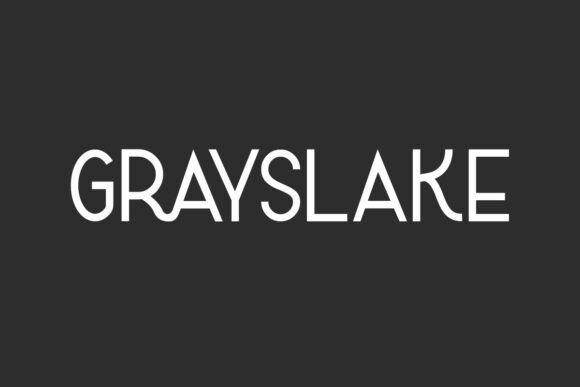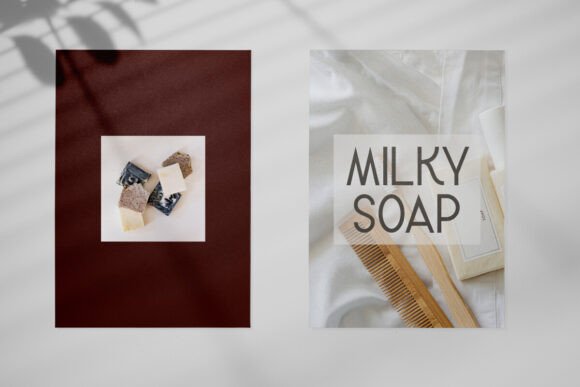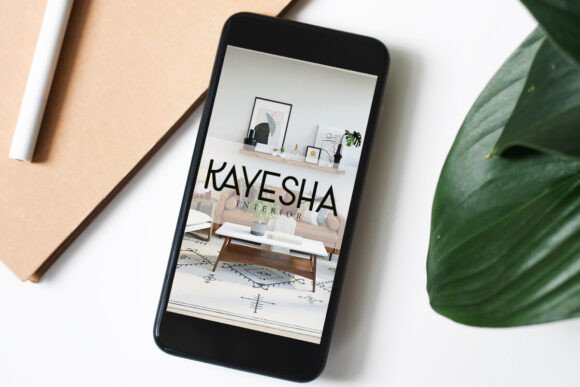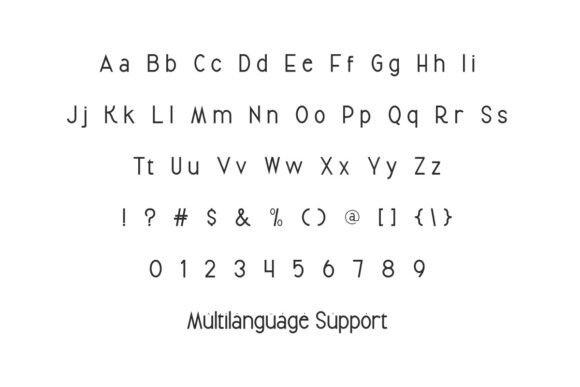
Grayslake Font
About the Grayslake Font
Discover the charm of Grayslake Font. This font is a perfect blend of modern aesthetics and classic appeal. Grayslake Font is a stylish, modern ligatured sans serif display font. This font has an attractive style to enhance your design to make it stand out. It will suit many designs, such as apps, brochures, custom design, gift box, invitation, label, poster, product packaging, quote, signage, stationery, website, and more!
Grayslake’s strong geometric forms and ligatures make it ideal for headlines, logos, and short impactful statements in branding materials, posters, and packaging. Its modern aesthetic lends itself well to contemporary projects. Avoid using it for extended body text or UI elements; its bold character isn’t suited to readability in smaller sizes or continuous paragraphs.
Consider pairing Grayslake with a clean sans-serif like Open Sans for body copy to balance its boldness, or a warmer serif such as Merriweather for a more traditional feel. For a more playful approach, a handwritten script font could create interesting contrast.
The overall personality of Grayslake is confident and modern, conveying a sense of sophistication and boldness. It is best suited for brands aiming for a strong, memorable visual identity.